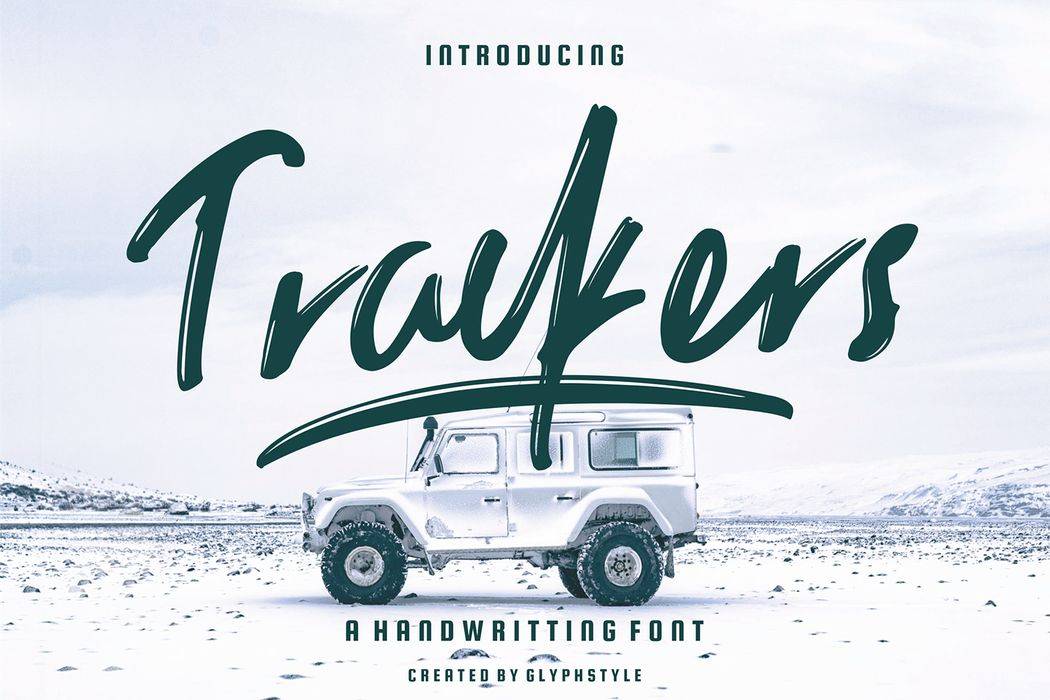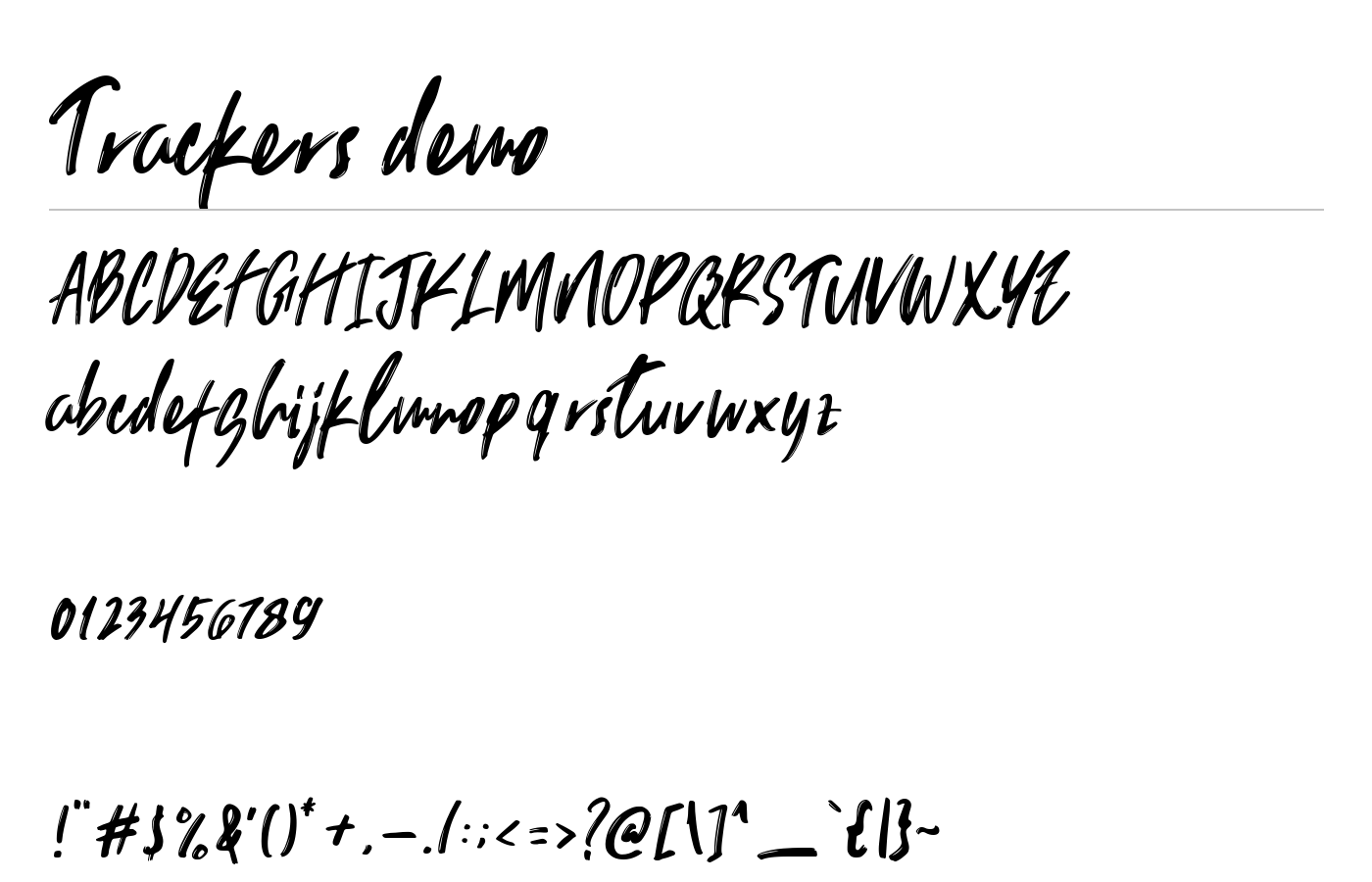
Trackers Handwritten Font is a lively, brush-style script with a bold, organic feel that mimics authentic hand lettering. Its high contrast strokes and fluid, slightly irregular shapes bring energy and personality, making it ideal for creative branding, posters, and editorial designs seeking a dynamic, informal touch. This font works best in expressive headlines or logos where a personal, artistic vibe is desired.
Trackers Handwritten Font
About Trackers Handwritten Font
| Font family | Trackers Handwritten Font |
| Designer | GlyphStyle |